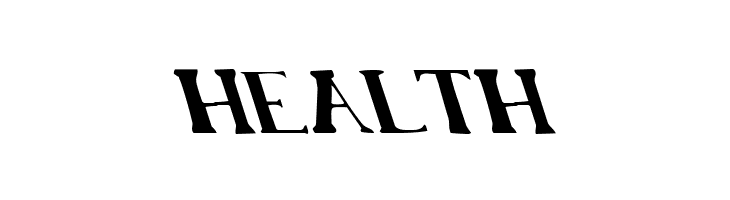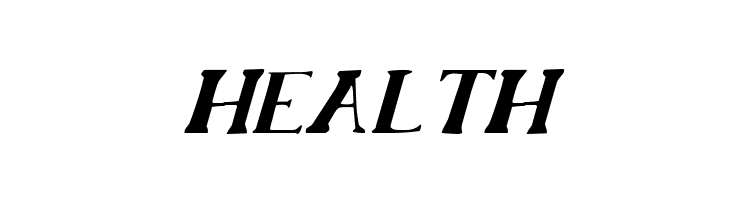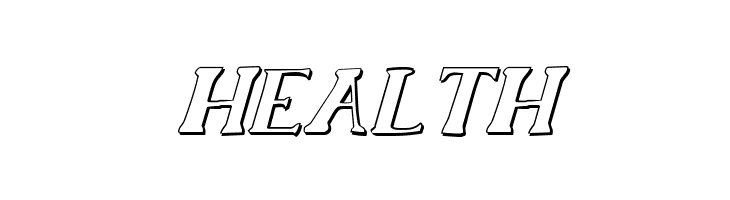
Chardin Doihle Font
A bold, decorative font with sharp edges and rounded curves, blending modern and vintage styles.
Chardin Doihle Bold Font
A bold, slab serif font with high contrast and vintage-modern appeal.
Chardin Doihle Bold Italic Font
A bold, italicized font with a dynamic and robust style.
Chardin Doihle Condensed Italic Font
A sleek, italic, and condensed font with bold strokes and a modern style.
Chardin Doihle Condensed Font
A bold, condensed font with high contrast and a vintage-modern blend.
Chardin Doihle Shadow Font
A bold, shadowed font with a modern, three-dimensional appearance.
Chardin Doihle Expanded Font
A bold, expanded font with a modern, dynamic style.
Chardin Doihle Expanded Italic Font
A dynamic, expanded italic font with bold strokes and moderate contrast.
Chardin Doihle Italic Font
A dynamic and elegant italic font with moderate contrast and a stylish appearance.
Chardin Doihle Shadow Italic Font
A shadowed, italicized font with a three-dimensional effect.
Chardin Doihle Leftalic Font
A bold, left-slanted font with high contrast and distinctive serifs.